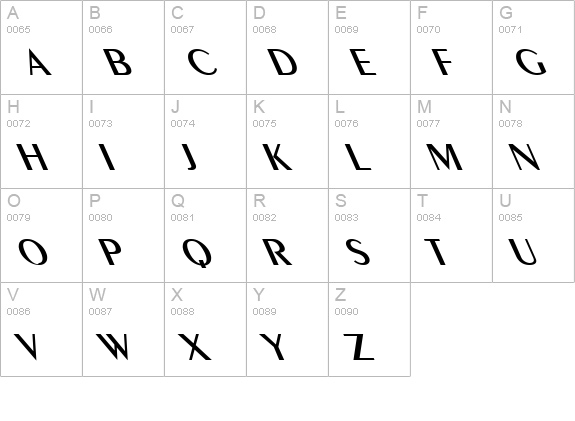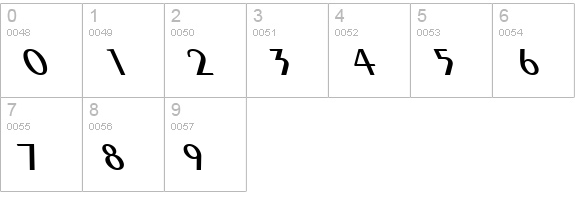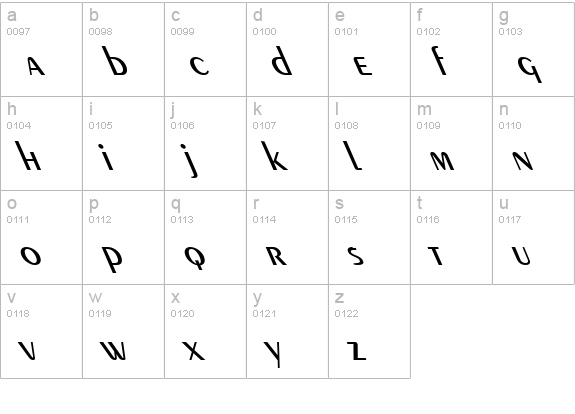
Pare Reverse Italic Font Details
Pare Reverse Italic is a distinctive, italic variant in the Pare typeface family \xE2\x80\x94 well suited to design and typography projects.
Pare Reverse Italic font is a captivating and unique typeface that effortlessly blends elegance with a modern twist. This font features a distinctive italic style with a playful reverse effect, creating a visually stunning and eye-catching design. With its sleek and fluid letterforms, Pare Reverse Italic font adds a touch of sophistication to any project. Its gentle curves and exaggerated angles create a dynamic and energetic appearance, making it perfect for headlines, logos, and branding materials. One of the most remarkable features of Pare Reverse Italic font is its versatility. It seamlessly fits into a wide range of design styles, from minimalist and contemporary to bold and expressive. This font truly knows how to make a statement and capture attention. Not only does Pare Reverse Italic font excel in aesthetics, but it is also highly legible and readable, ensuring that your message is effectively communicated to your audience. Its clean and well-defined characters make it a pleasure to read, whether in print or on the screen. Moreover, Pare Reverse Italic font is available for free download at FontsMarket.com. This means that you can easily access and utilize this exceptional font in your projects without any cost. It's a fantastic opportunity to enhance your designs with a premium-quality typeface that won't break the bank. So, whether you're a designer, a typographer, or simply an individual looking to add a touch of elegance to your personal projects, Pare Reverse Italic font is the perfect choice. Its distinct style, versatility, and the fact that it's freely available make it a valuable asset for any creative endeavor. Download it now and let your creativity soar to new heights.